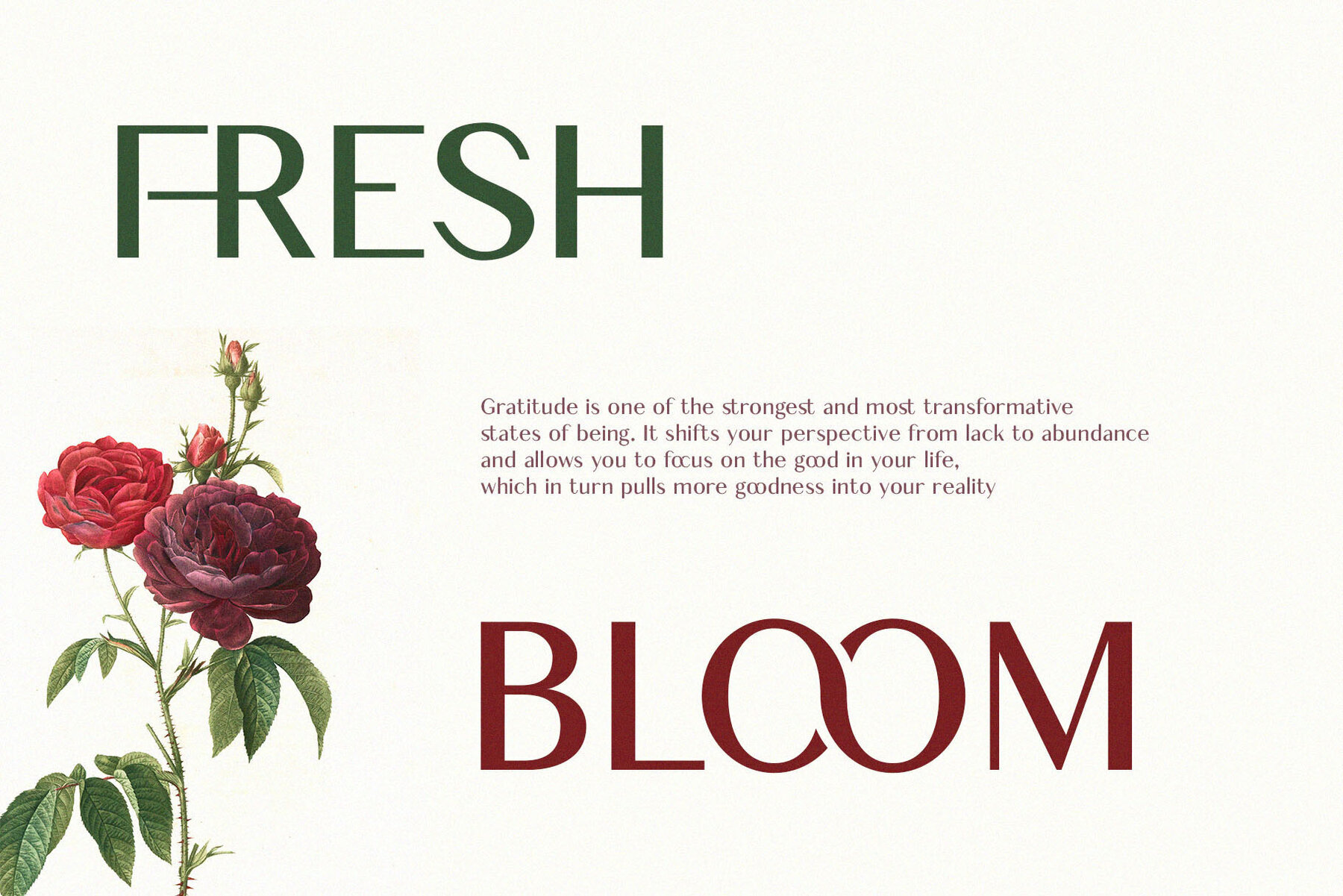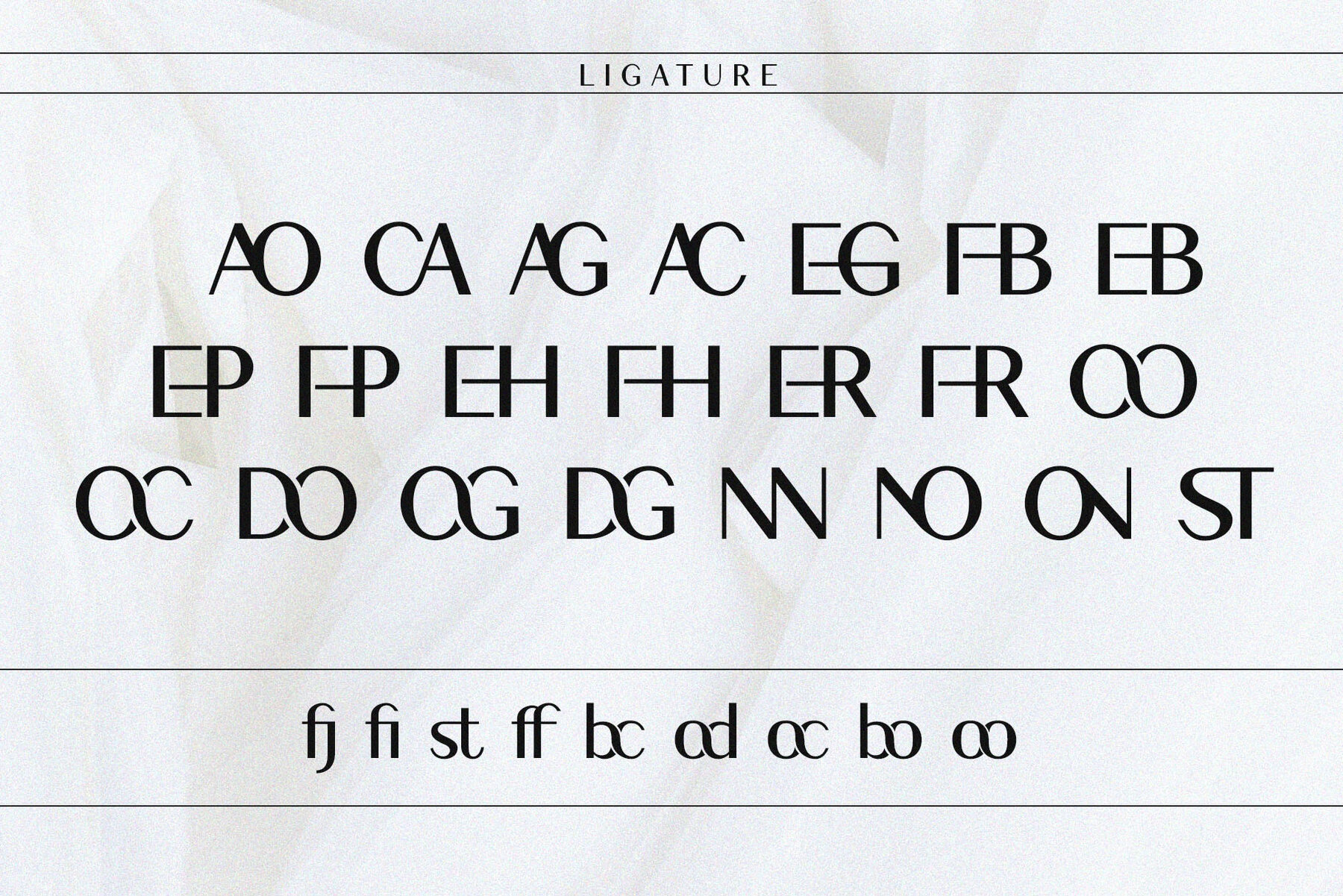
Cheryl Sans Font
Cheryl Sans
Cheryl is a modern sans-serif font that embodies simplicity and functionality. Its clean, minimalistic letterforms combine curves and straight lines to provide clarity and precision. Cheryl's contemporary and versatile design is ideal for various applications, from branding to web design. Elevate your projects with Cheryl's understated and modern style. Moreover, Cheryl is PUA encoded, allowing seamless access to all the glyphs and ligatures, enhancing your creative flexibility and making the design process effortlessly smooth.Cheryl Sans: Modern Simplicity and Versatility